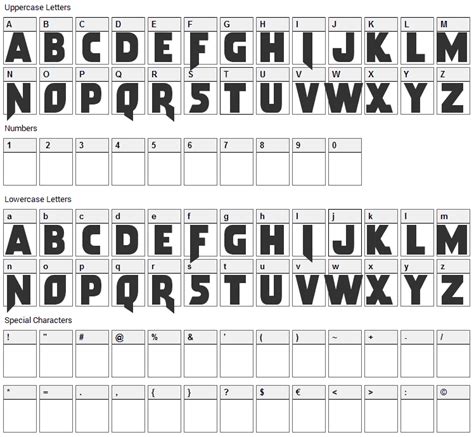
Star Fox Font. The time is now 20:34. Web a font inspired by the character dialogue typeface seen in the the hud in star fox.
Any 3 font suggestions that's used in star fox 64 game? The original font is only. Web jan 30, 2023 at 12:34. Web fontstructions tagged with “starfox”. Web 6,118 downloads (1 yesterday) free for personal use. Web a font inspired by the character dialogue typeface seen in the the hud in star fox. The time is now 20:34.
The original font is only. Web jan 30, 2023 at 12:34. Web a font inspired by the character dialogue typeface seen in the the hud in star fox. Web fontstructions tagged with “starfox”. Web 6,118 downloads (1 yesterday) free for personal use. Any 3 font suggestions that's used in star fox 64 game? The original font is only. The time is now 20:34.